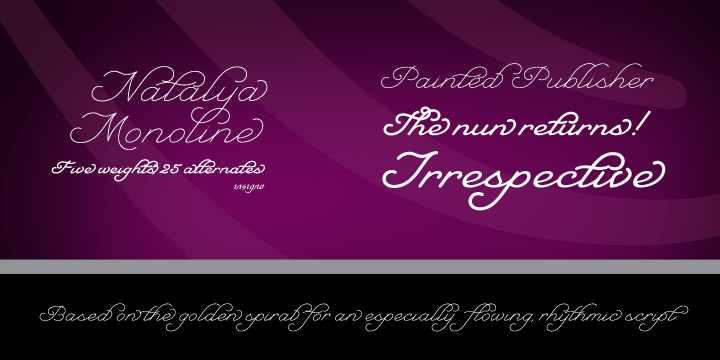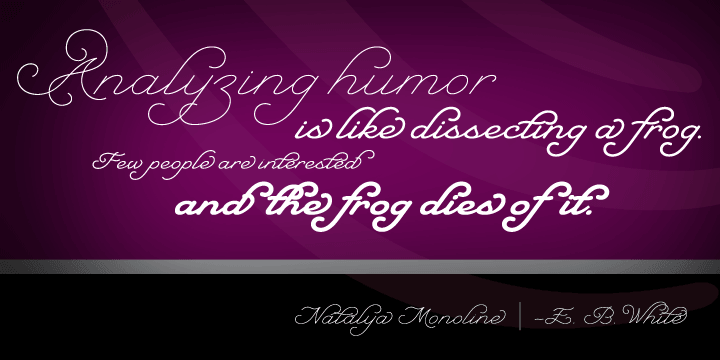
Natalya Monoline is a script and art deco font family. This typeface has five styles and was published by Insigne Design.
Natalya Monoline is the rounded monolinear companion to Natalya. Like its predecessor, Natalya Monoline has a smooth rhythm and flows fluidly, due in no small part to its reliance on the golden spiral for its ornate swirls. This makes for an especially harmonious script with timeless appeal. The typeface family includes five weights with three alternate variations of the ascenders and descenders and includes OpenType ligatures, oldstyle figures and ending swashes.